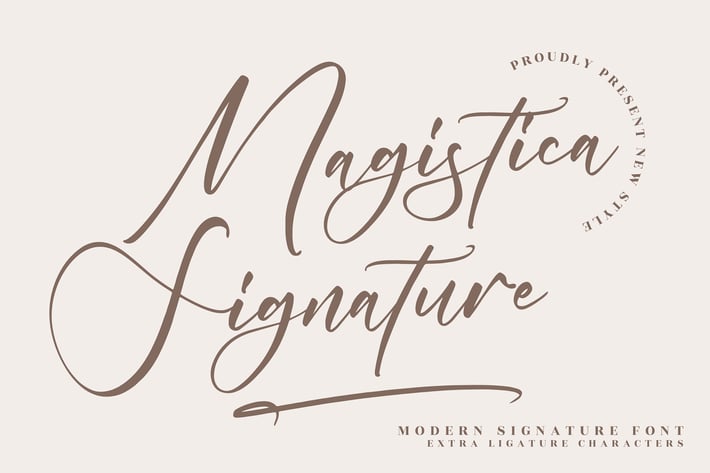
Magistica Signature Font
Magistica Signature is a refined modern signature font featuring elegant strokes, smooth curves, and luxurious ligature characters. Its stylish handwritten flow brings sophistication to branding, stationery, and social media visuals—perfect for designers who want a polished, premium signature look.
Modern signature script with graceful, flowing lines
Extra ligature characters for enhanced stylistic variety
Clean, elegant letterforms ideal for logos and name marks
Perfect for both digital applications and high-end print materials
Luxury branding & personal signatures
Business cards & professional stationery
Fashion, beauty, and lifestyle identity
Social media posts & refined visual content
Invitations, greeting cards, and editorial titles
Packaging and boutique product design
Premium signature elegance crafted for modern, sophisticated branding.